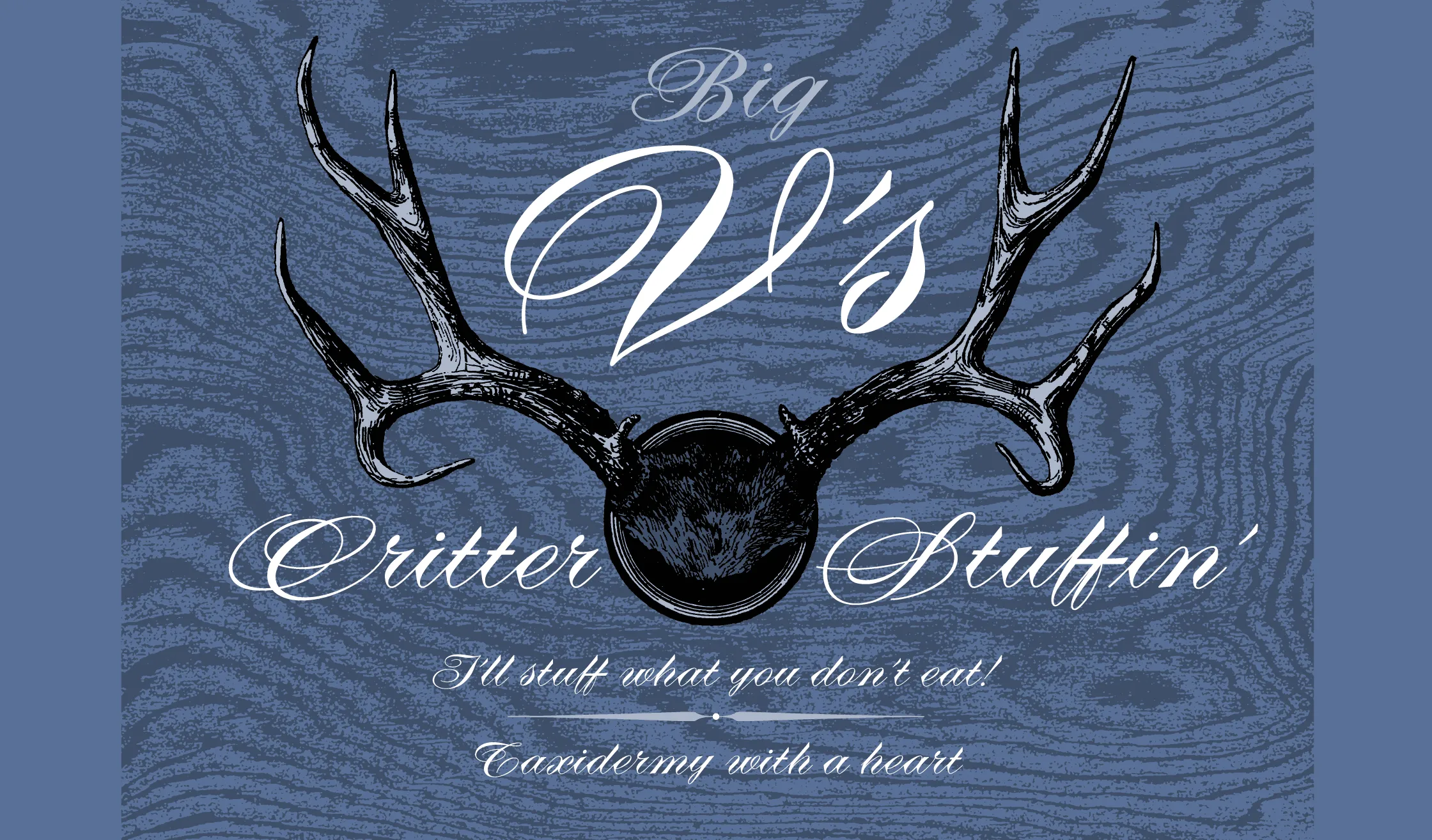
Diane Script Premiere Font
The Diane Script Premiere Font is perfect for luxury wedding invitations, premium fashion branding, elegant beauty product packaging, sophisticated personal stationery, high-end restaurant menus, exclusive boutique signage, luxury spa communications, refined social media graphics, prestigious award ceremonies, and distinguished personal branding.
What makes the Diane Script Premiere Font so exciting is its exquisite combination of premiere elegance with sophisticated script artistry that creates the ultimate expression of luxury and refined taste perfect for the most distinguished projects. This magnificent typeface features graceful flowing letterforms, premiere-quality calligraphic details, and sophisticated script elements that perfectly capture the essence of exclusive elegance and timeless sophistication. The font's premiere personality and luxury appeal make it an exceptional choice for high-end brands, luxury services, and prestigious events seeking to communicate exclusivity, refinement, and authentic premiere quality with unmatched elegance.
The Diane Script Premiere Font family includes luxury variations and premiere alternates, featuring elegant swashes, sophisticated ligatures, and exclusive styling elements. Each variation maintains the signature premiere appeal while offering different levels of luxury expression and sophisticated elegance, giving designers extensive creative possibilities for crafting exclusive communications and distinguished brand personalities that embody the highest standards of script typography.
The graceful premiere characteristics of Diane Script Premiere Font showcase masterful luxury script design, with each letter carefully crafted to flow elegantly while maintaining premiere proportions and sophisticated aesthetic appeal. The font's comprehensive character set includes uppercase and lowercase letters, numerals, luxury punctuation, and exclusive symbols, ensuring complete functionality for diverse premiere projects and international luxury applications.
Expertly designed for both digital and print luxury applications, this distinguished font maintains its premiere script character and sophisticated elegance across various sizes and formats. From large-scale luxury installations to intimate premiere invitations, Diane Script Premiere Font adapts gracefully to any exclusive design challenge while preserving its distinctive luxury personality and authentic premiere charm.